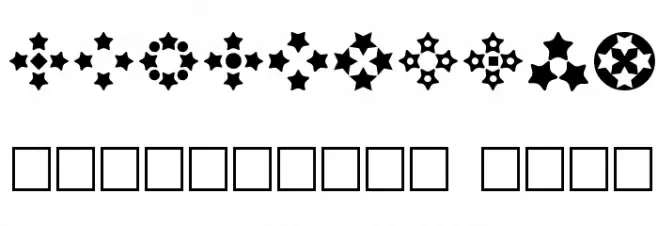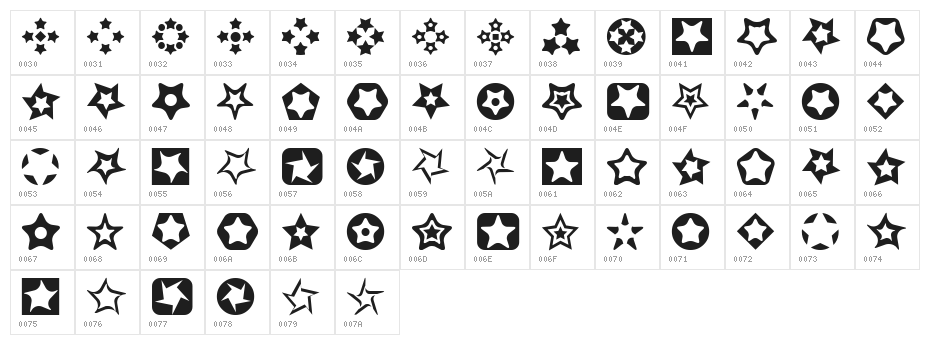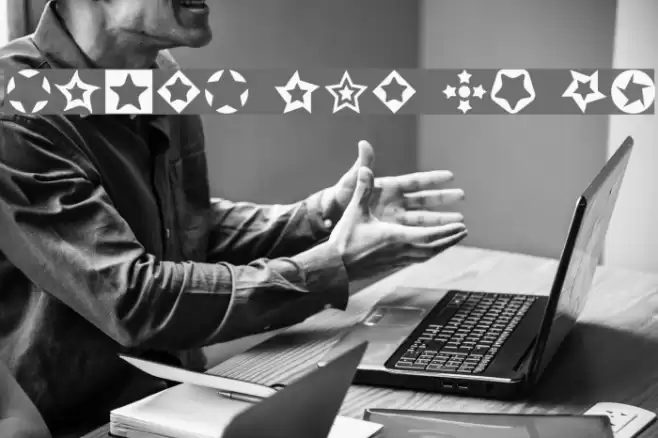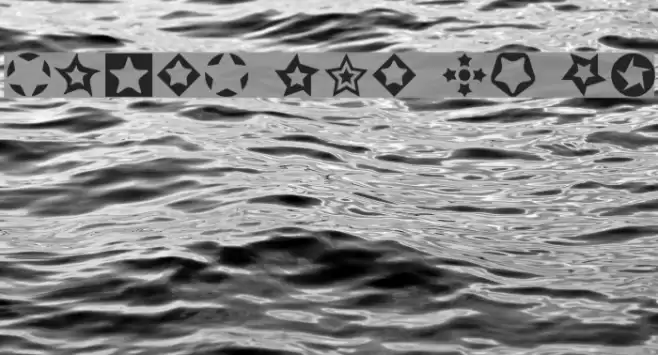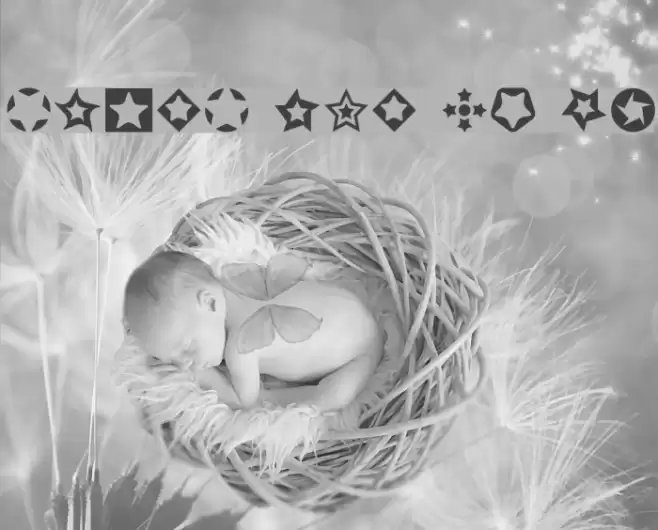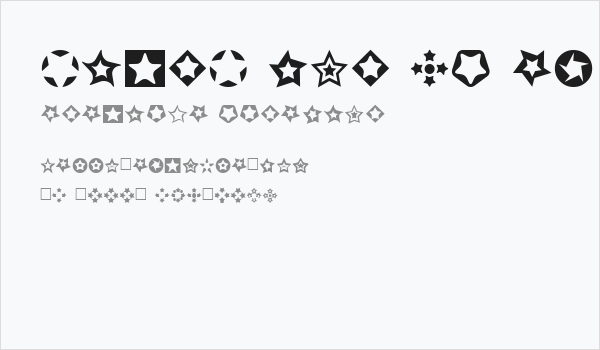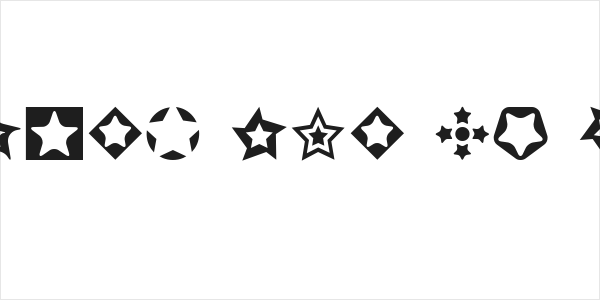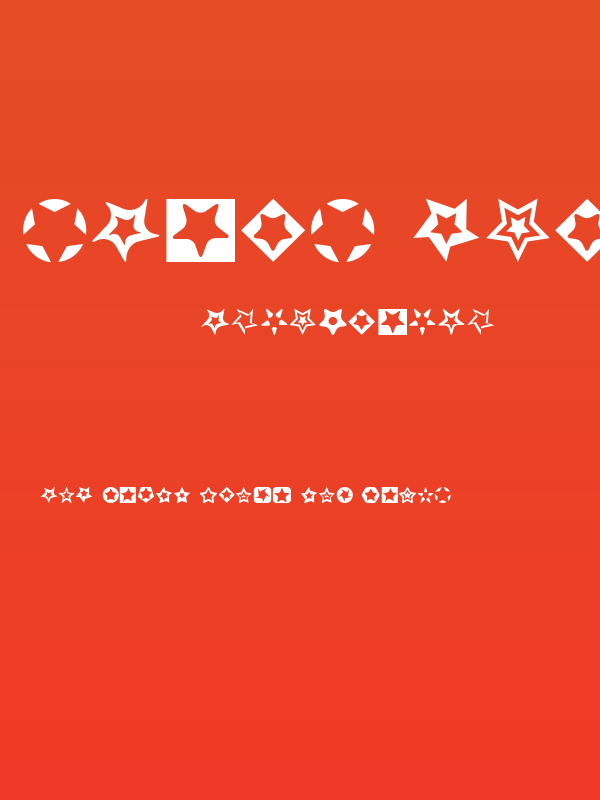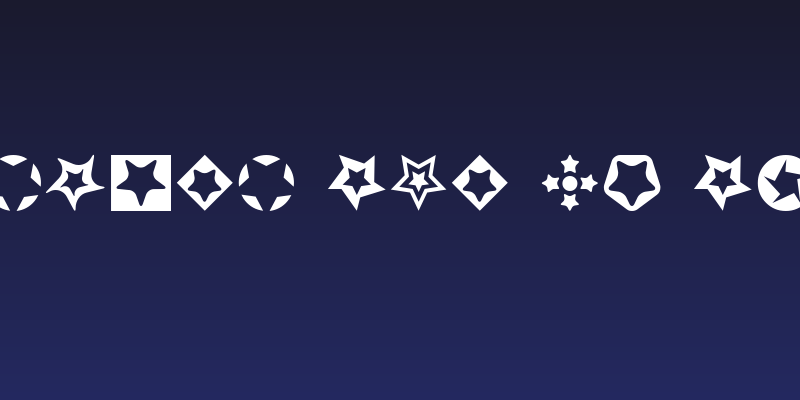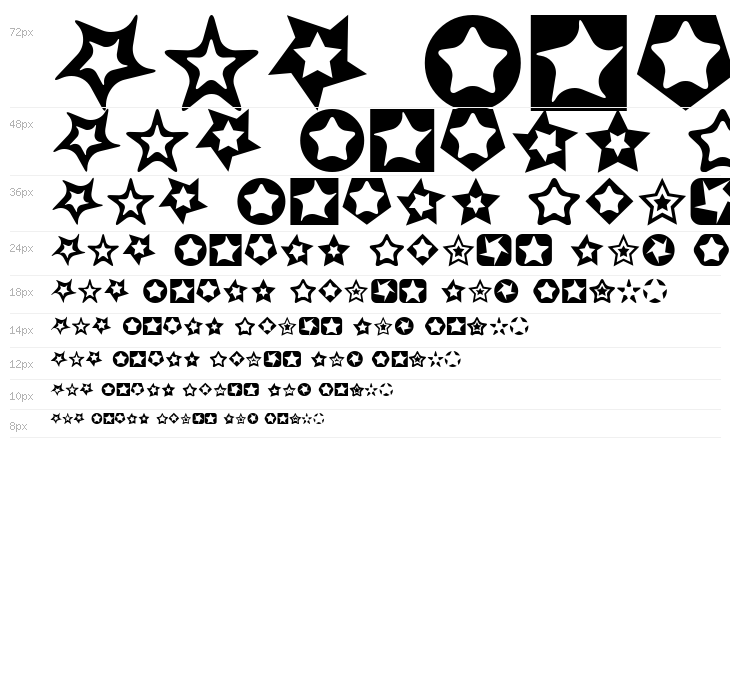
Stars for 3D FX Font
Stars for 3D FX Description
A decorative display font featuring a variety of star shapes and geometric backgrounds, including circles, squares, and polygons, with both filled and outlined styles. The glyphs are bold, highly stylized, and designed for visual impact rather than readability.
| Overall Style | Decorative, Playful, Modern |
| Use Case | Logos, Posters, Decorative elements, Themed headlines |
| Proposed Projects | Party invitations, children's materials, holiday cards, posters, playful branding, digital stickers. |